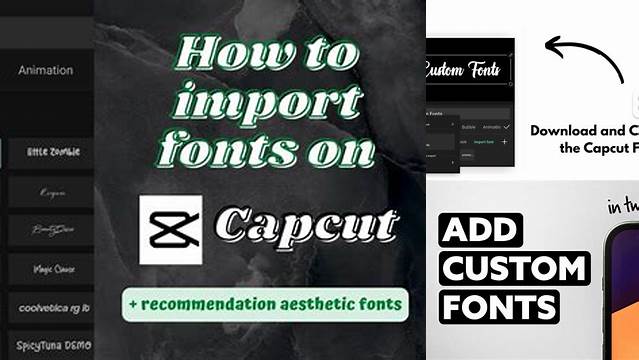
Cool CapCut Fonts: Free Downloads To Level Up Your Edits
Hey guys! Want to make your CapCut videos pop? Choosing the right font can seriously level up your editing game. Forget boring, default fonts β let's dive into the world of cool CapCut fonts and where you can download them for free! We're talking about fonts that add personality, style, and a professional touch to your creations. Whether you're making TikToks, YouTube videos, or Instagram stories, the perfect font is out there waiting for you. So, grab your editing gloves, and let's get started!
CapCut Font Essentials
Understanding Font Styles in CapCut
When it comes to cool CapCut fonts, it's essential to understand the different styles available and how they can impact your video's message. CapCut offers a variety of built-in fonts, but to really stand out, you'll want to explore custom options. Consider the tone you're aiming for β a playful script might be perfect for a vlog, while a bold sans-serif could work wonders for a motivational video. Experiment with different fonts to see what resonates with your audience and enhances your content.
Think about readability too! A super stylish font might look amazing, but if viewers can't easily read it, it defeats the purpose. Balance aesthetics with functionality to ensure your text is both eye-catching and clear. Cool CapCut fonts should complement your visuals, not compete with them. Remember to consider the overall theme of your video. Are you going for a modern, minimalist look, or something more vintage and classic? Your font choice should align with that aesthetic. And don't be afraid to mix and match fonts β just make sure they harmonize well together. For example, you could use a bold font for headings and a simpler font for body text. This creates visual interest and helps guide the viewer's eye. Ultimately, the best CapCut fonts are those that enhance your message and engage your audience. So take the time to explore different options and find what works best for you!
Top Font Categories for CapCut
Best Script Fonts for CapCut
Looking for something elegant and flowing? Cool CapCut fonts in the script category are perfect for adding a touch of sophistication to your videos. Think wedding videos, romantic montages, or even just adding a personal touch to your vlogs. Some popular script fonts include Brush Script MT, Pacifico, and Lobster. But remember, readability is key! Choose a script font that's easy to read, even at smaller sizes. Avoid fonts with overly intricate details or thin strokes, as these can be difficult to decipher on a mobile screen. Also, consider the overall tone of your video. A formal script font might be perfect for a wedding video, while a more casual script font could work well for a vlog.
Experiment with different weights and styles to see what looks best. Some script fonts come in multiple weights, allowing you to create a more dynamic and visually appealing design. And don't be afraid to mix and match script fonts with other font styles. For example, you could use a script font for headings and a sans-serif font for body text. This creates a nice contrast and helps guide the viewer's eye. When using script fonts, pay attention to kerning and letter spacing. Adjust these settings to ensure that the letters are properly spaced and that the text is easy to read. And don't forget to consider the background color. A light script font might not be visible on a light background, so choose a color that provides sufficient contrast. With a little bit of experimentation, you can find the perfect script font to enhance your CapCut videos and add a touch of elegance to your creations.
Bold Sans-Serif Fonts for Impact
Need a font that screams attention? Cool CapCut fonts with bold sans-serif styles are your best bet. These fonts are clean, modern, and perfect for headlines, titles, and any text that needs to stand out. Think Impact, Bebas Neue, and Montserrat. These fonts are often used in motivational videos, product demos, and any content that needs to grab the viewer's attention. When choosing a bold sans-serif font, consider the overall aesthetic of your video.